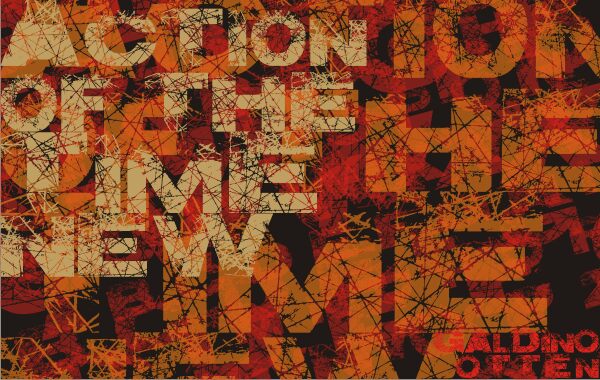
Action of the Time New by Galdino Otten is a free eroded display font built from massive sans serif capitals scored with a dense network of scratches. Its blocky silhouettes stay forceful beneath the damage. The overlapping cuts resemble shattered glass or tangled wire and run consistently through the lettering.
For film posters and hard rock merchandise, the distressed surface supplies a sense of impact, while streetwear branding and game graphics can draw on its industrial edge. It will speak directly to audiences drawn to aggressive underground visuals.